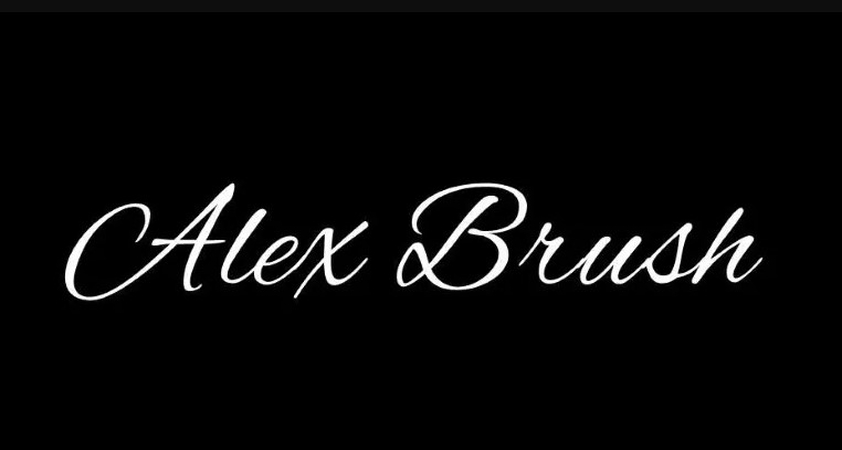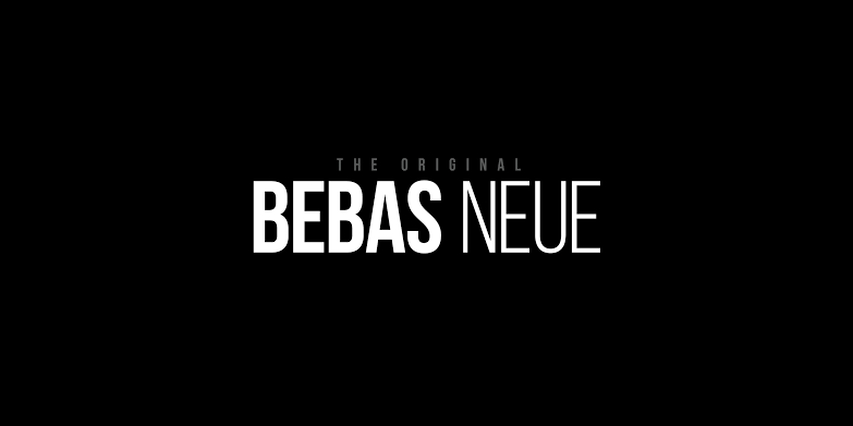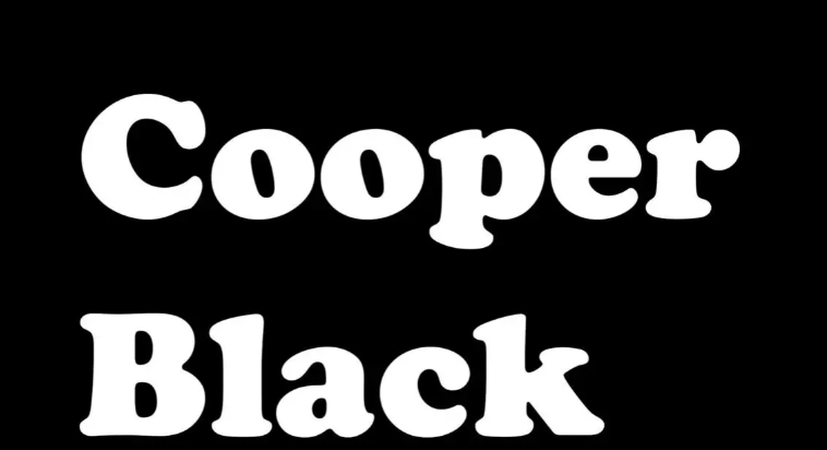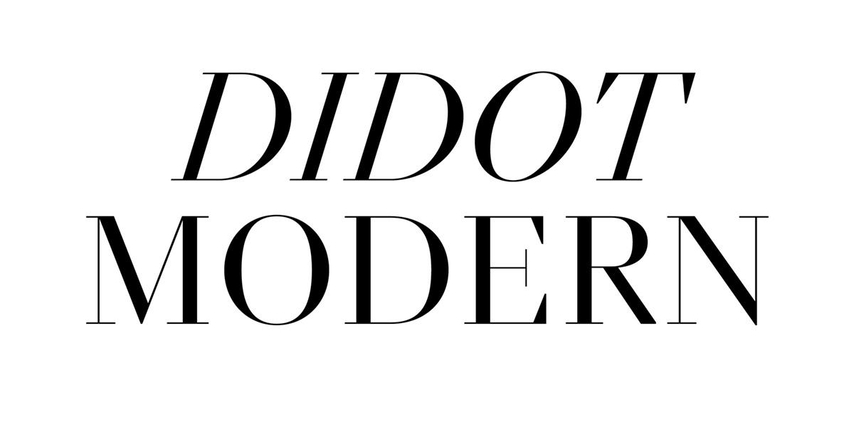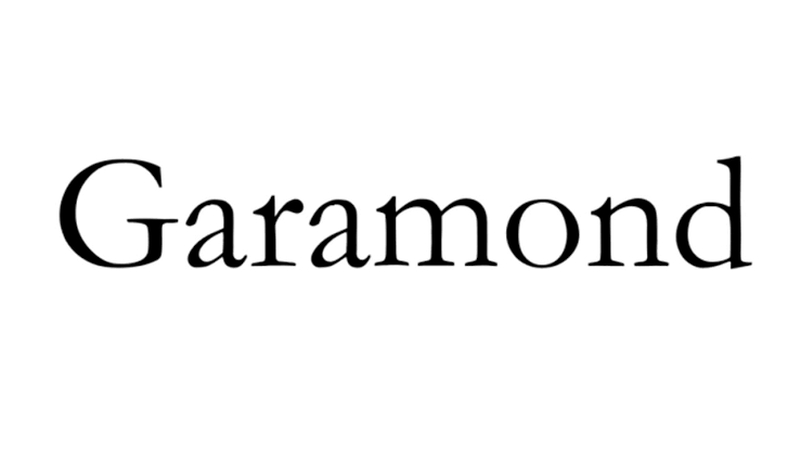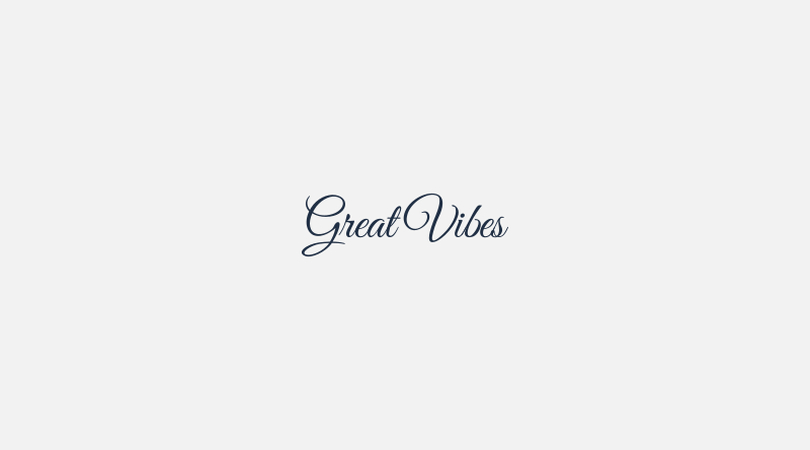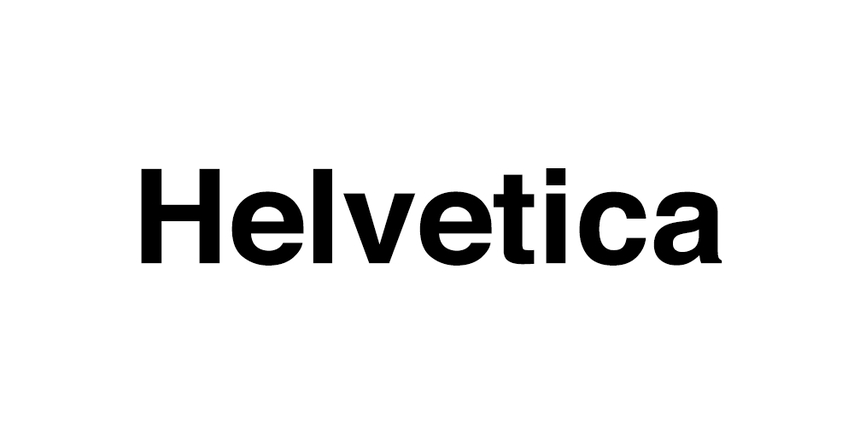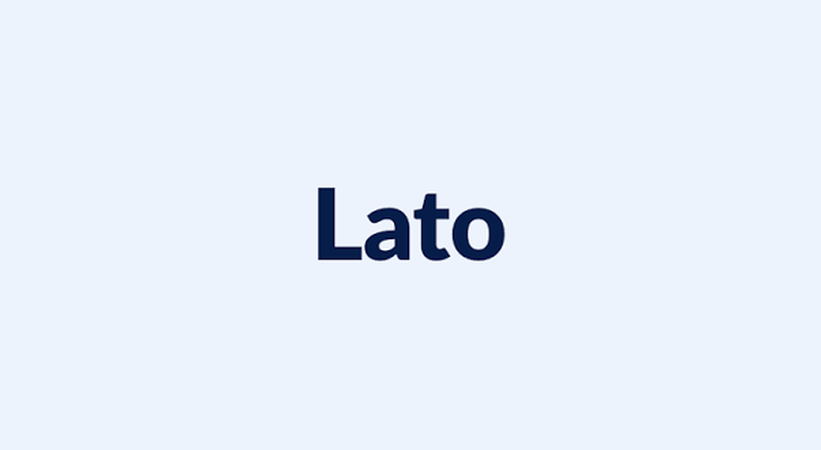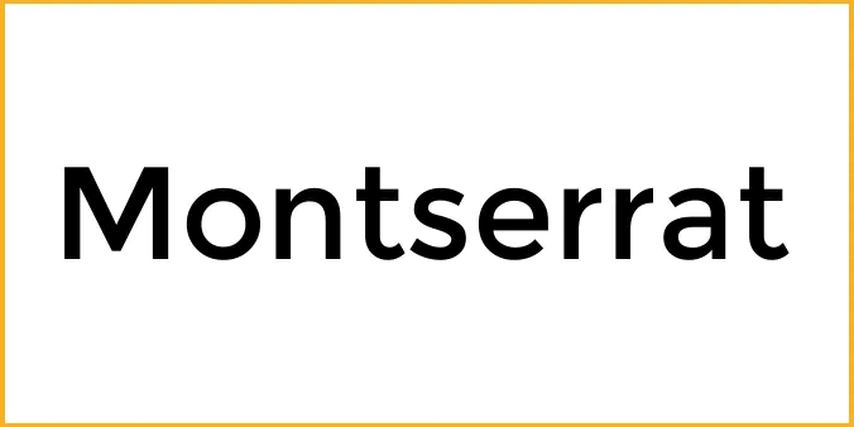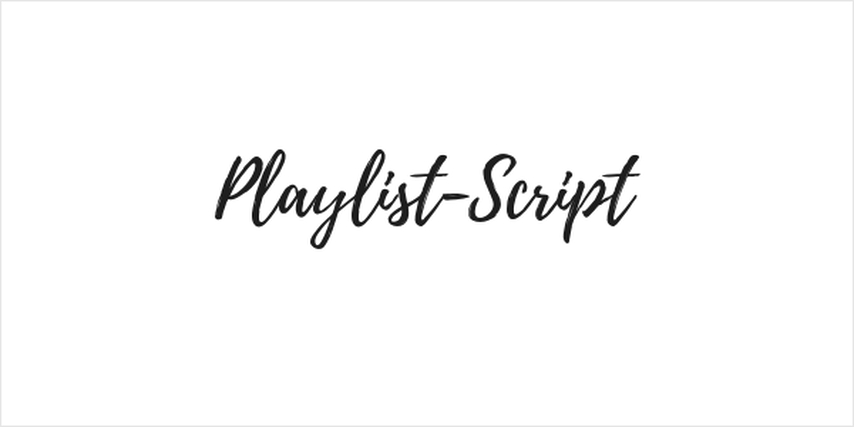
30 Best Fonts for Logos to Make Your Brand Stand Out
Choosing a font is a key step in building a brand. The fonts for logo designs show your identity and speak to your customers. However, finding the right style is hard. There are thousands of options out there. If your text looks generic, your brand will not stand out. This guide covers thirty interesting fonts for logos. We will look at modern, luxury, creative, and bold options. This will help you find the best look. We will also show you how to use AI tools to design your text.
Part 1: What Makes a Good Font for Logo Design?
A good font must work everywhere. It should look clear on a small screen and a huge billboard. Here are three things to check before you choose:
• 1. Brand Personality.Your text should match your values. A tech firm needs clean lines. A law office wants traditional styles. Pick a look that fits your audience.
• 2. Readability.Make sure people can read your text easily. Check the spacing between letters. If the lines are too thin, they will blur at small sizes.
• 3. Uniqueness.A unique font makes your brand memorable. Try to avoid default system fonts. They make your business look generic.
Also, check the letter spacing. Spacing affects the overall balance. If characters are too close, they are hard to read. Always test your design in black and white first. This helps you see the shapes clearly before adding colors. If it works in black and white, it will work in color.
Part 2: Interesting Fonts for Logo Design: 30 Ideas to Inspire Your Brand
Here is our selection of thirty typography ideas categorized by style to help you find the best layout for your brand.
1. Modern Logo Fonts
Modern fonts use clean lines. They look simple and work well for tech brands.
1. Helvetica
• Style: Sans-serif
• Feeling: Neutral
• Use case: Tech logos
Helvetica is clean and highly readable.
2. Montserrat
• Style: Sans-serif
• Feeling: Friendly
• Use case: Startups
Montserrat looks very modern on screens.
3. Futura
• Style: Sans-serif
• Feeling: Modern
• Use case: Transport brands
Futura uses clean geometric letter shapes.
4. Lato
• Style: Sans-serif
• Feeling: Warm
• Use case: Travel logos
Lato is professional, warm, and friendly.
5. Raleway
• Style: Sans-serif
• Feeling: Elegant
• Use case: Retail packaging
Raleway features sophisticated, thin lines.
6. Century Gothic
• Style: Sans-serif
• Feeling: Minimalist
• Use case: Print media
Century Gothic offers a clean look.
7. Avenir
• Style: Sans-serif
• Feeling: Balanced
• Use case: Tech corporations
Avenir is highly readable at any size.
8. Proxima Nova
• Style: Sans-serif
• Feeling: Adaptable
• Use case: Online blogs
Proxima Nova combines geometric and human details.
2. Luxury Logo Fonts
Luxury fonts use elegant curves. They show high value and authority.
1. Bodoni
• Style: Serif
• Feeling: Timeless
• Use case: High fashion
Bodoni features high thick-and-thin line contrast.
2. Garamond
• Style: Serif
• Feeling: Respected
• Use case: Publishing houses
Garamond is a readable, timeless classic.
3. Didot
• Style: Serif
• Feeling: Dramatic
• Use case: Luxury cosmetics
Didot looks premium and high-fashion.
4. Playfair Display
• Style: Serif
• Feeling: Artistic
• Use case: Premium hotels
Playfair Display has beautiful italic styles.
5. Cinzel
• Style: Serif
• Feeling: Strong
• Use case: Jewelry stores
Cinzel uses classic Roman letter shapes.
6. Baskerville
• Style: Serif
• Feeling: Traditional
• Use case: Corporate banks
Baskerville looks serious and highly professional.
7. Trajan
• Style: Serif
• Feeling: Majestic
• Use case: Real estate
Trajan uses capital letters from Roman carvings.
Conclusion